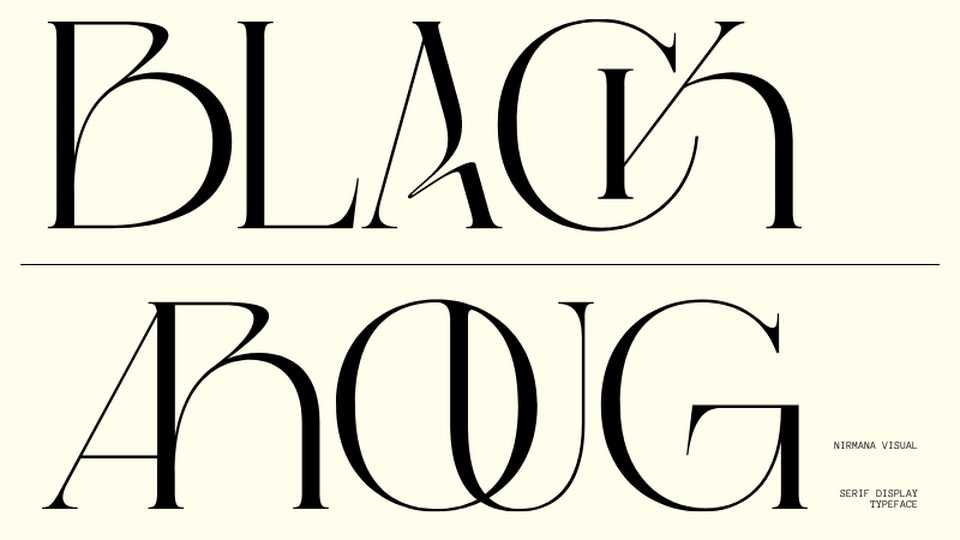
Download Black Aroug font, a display typeface inspired by Art Nouveau design. Black Aroug offers beautiful typographic harmony for a diversity of design projects, including logos and branding, social media posts, advertisements and product designs.